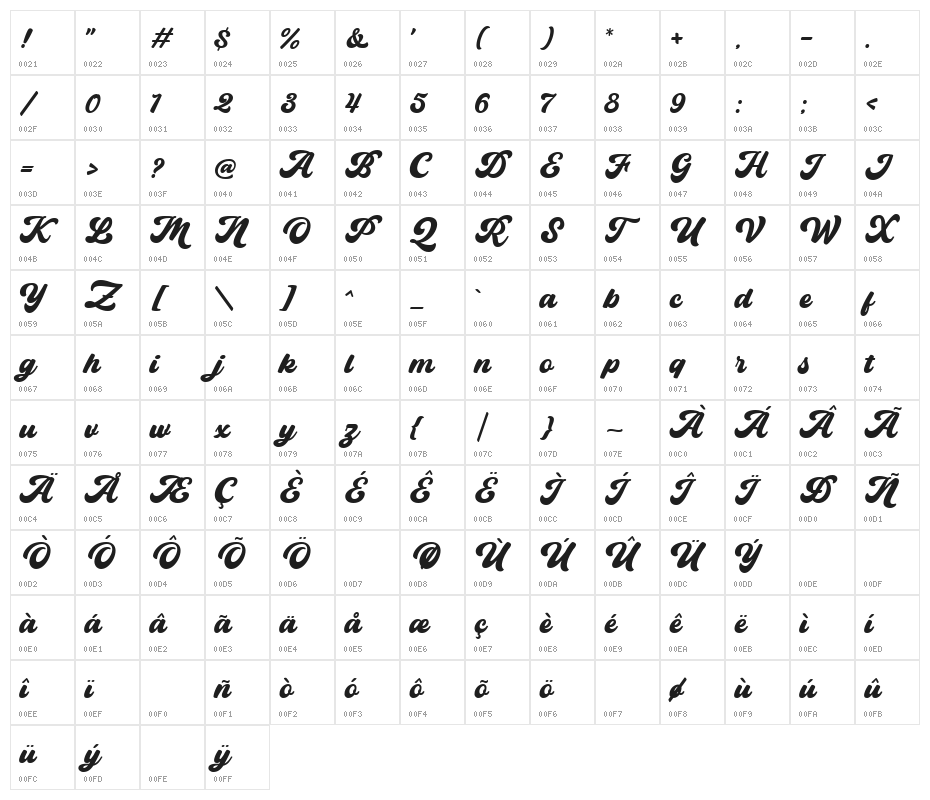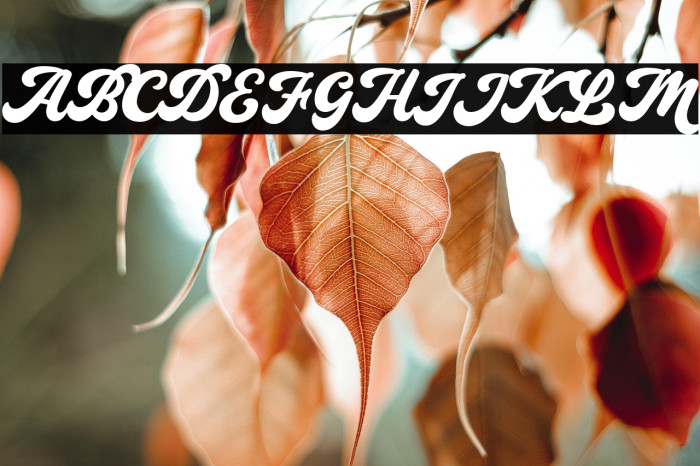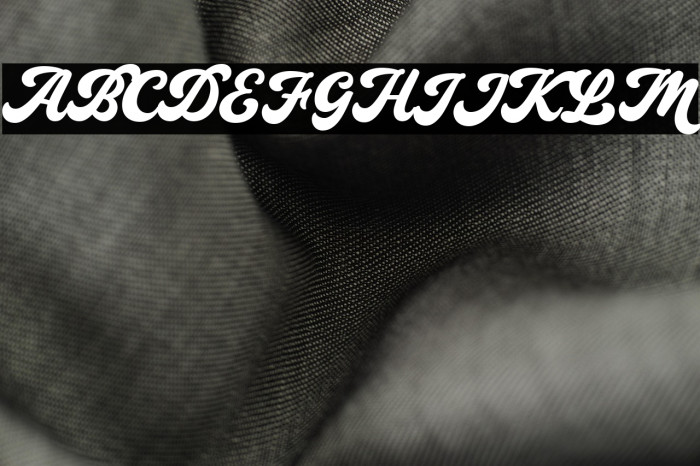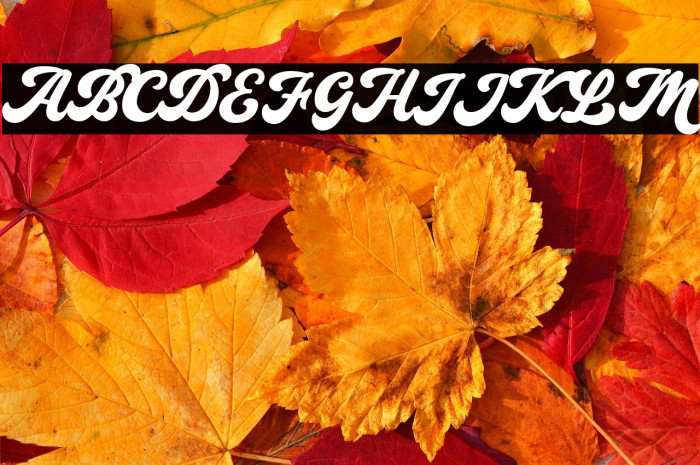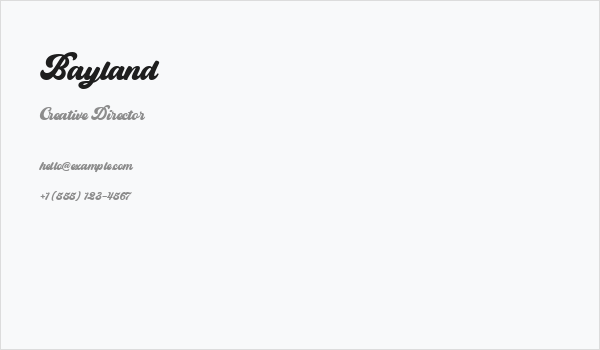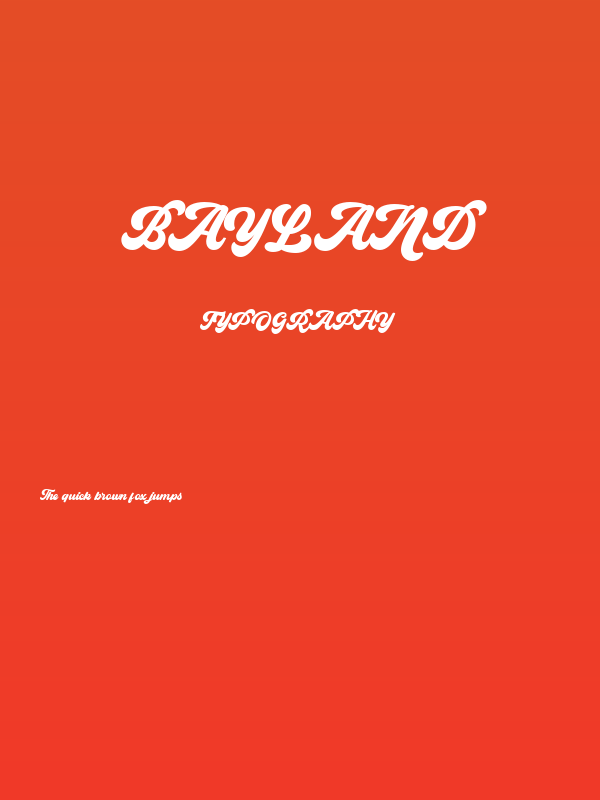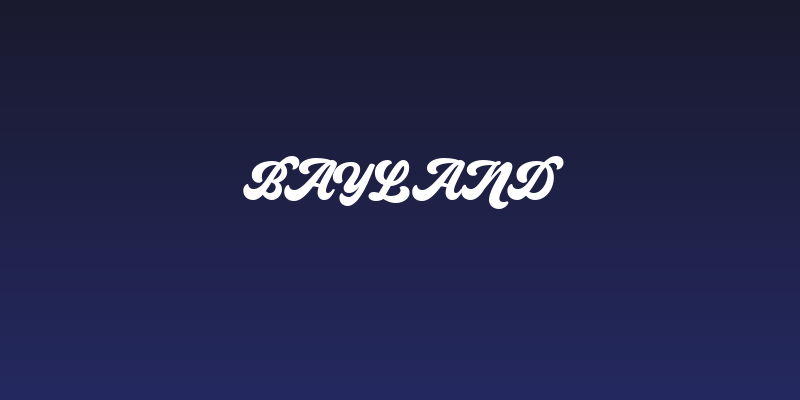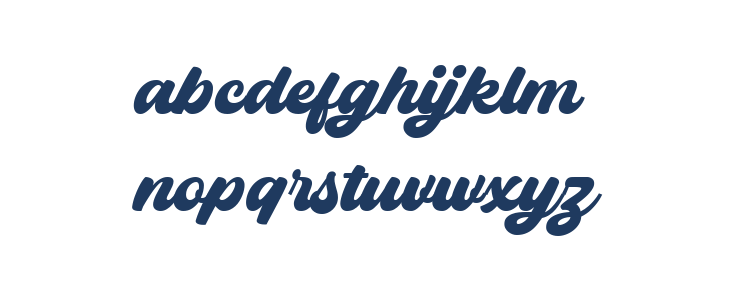
Bayland Font
Bayland Description
This font features a bold, cursive style with smooth, flowing lines that give it a dynamic and elegant appearance. The characters are connected, creating a seamless and continuous script that is both stylish and legible. The uppercase letters are slightly larger and more pronounced, while the lowercase letters maintain a consistent flow. The numerals and special characters are designed to match the overall aesthetic, ensuring uniformity across all text. This font is ideal for creating a sophisticated and modern look, suitable for various design projects.
| Proposed Projects | Ideal for wedding invitations, branding, logo design, and elegant packaging. |